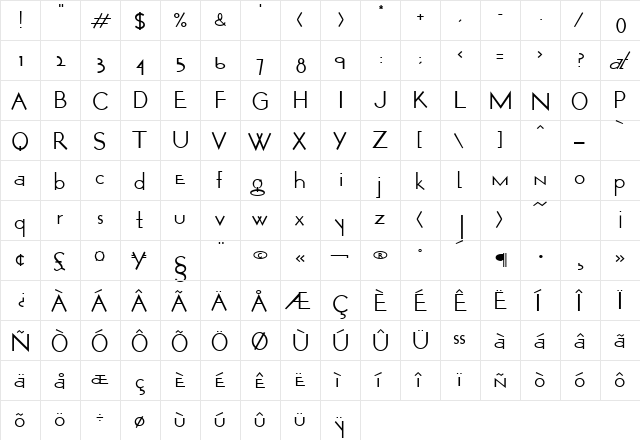
Wurker Regular
Design Context for Wurker Typeface
Wurker offers clean, dependable letterforms without strong stylistic allegiance, making it a practical choice for designers who need flexibility.